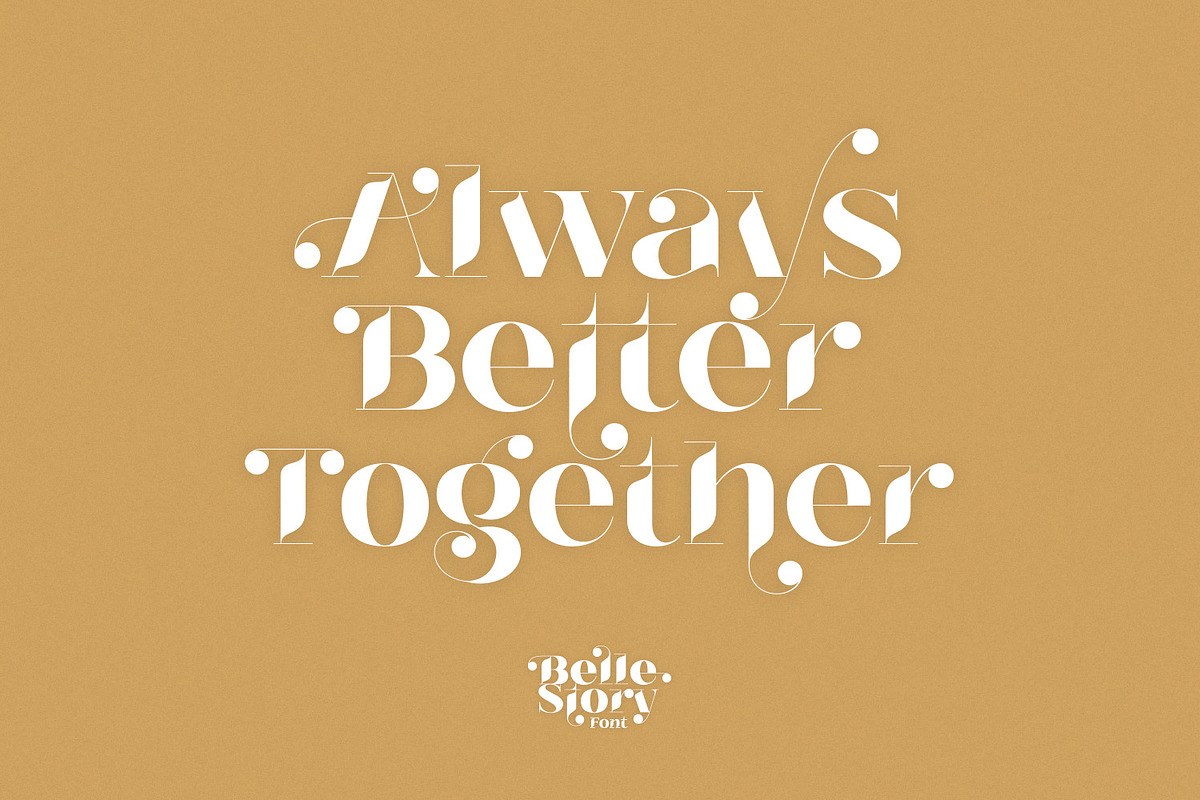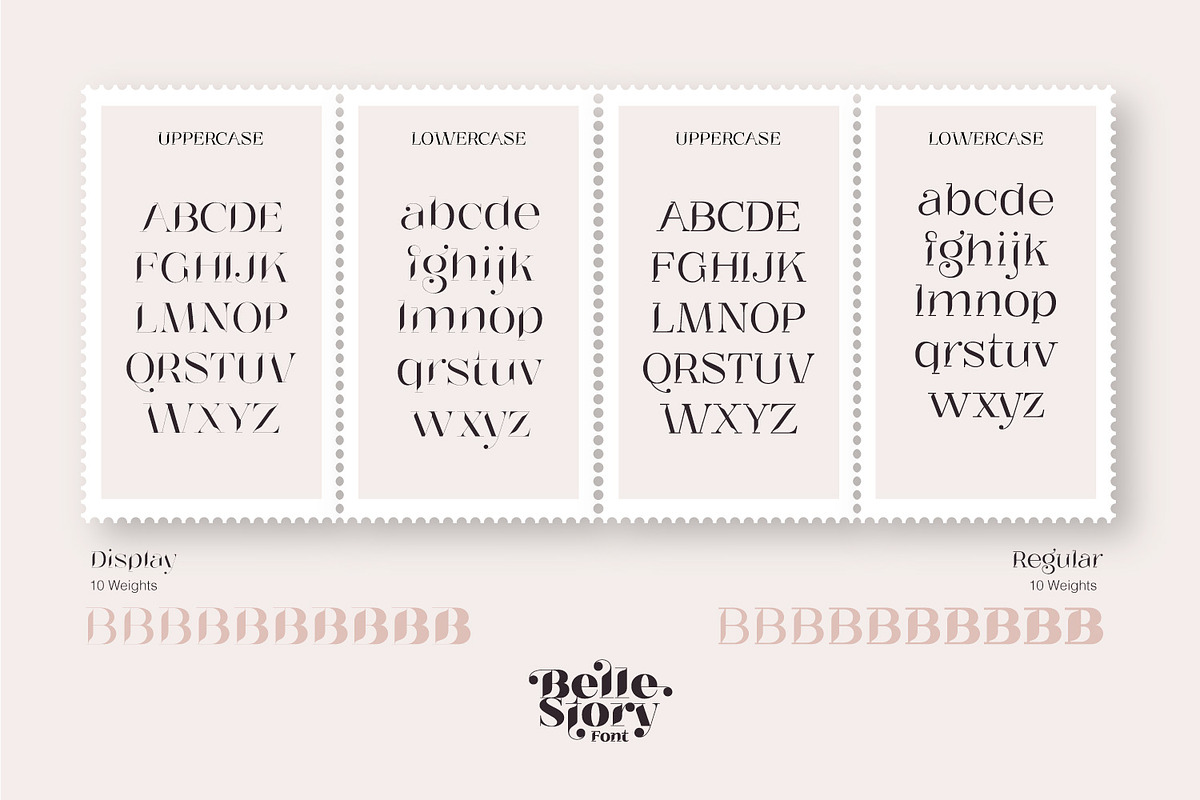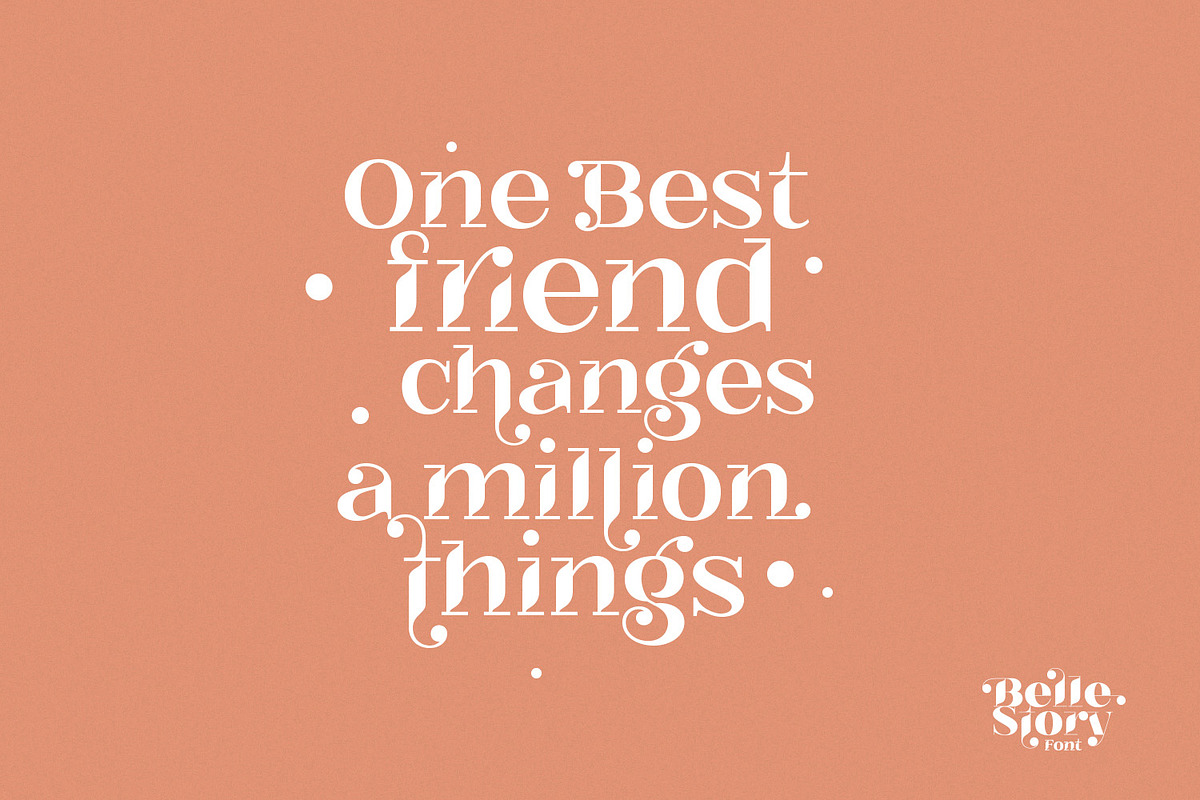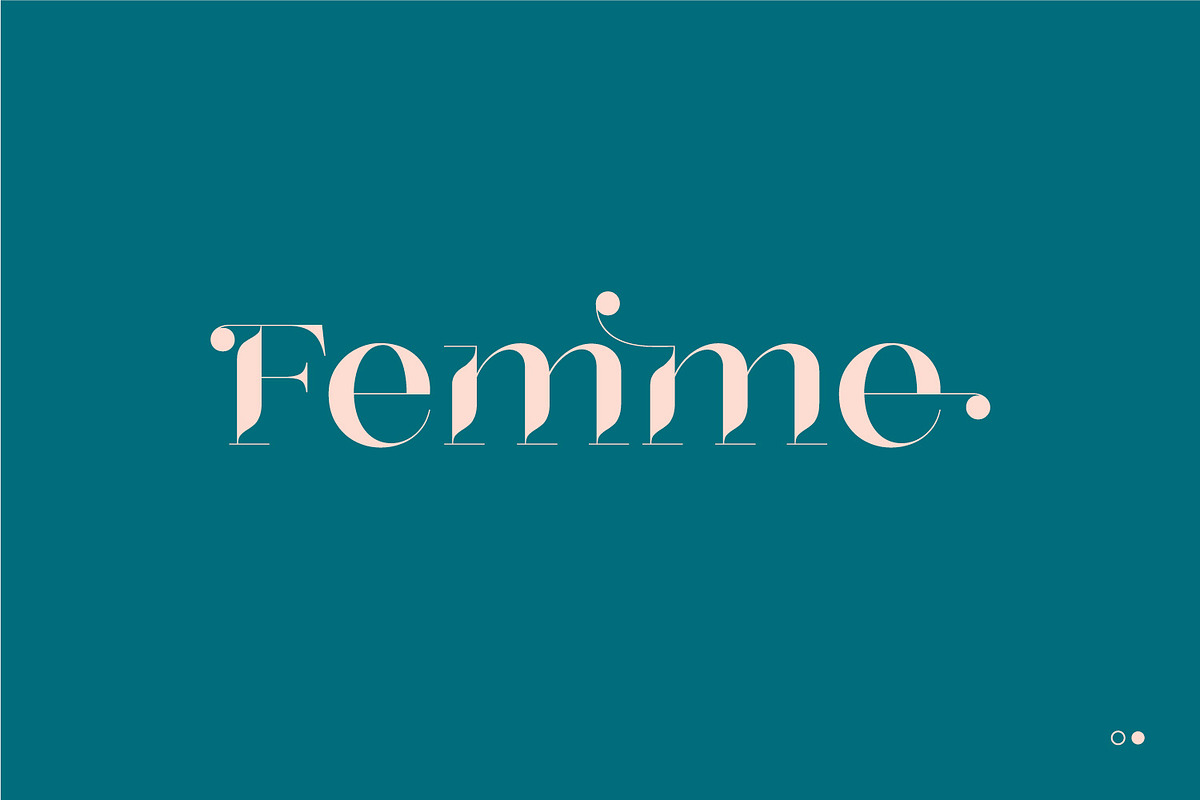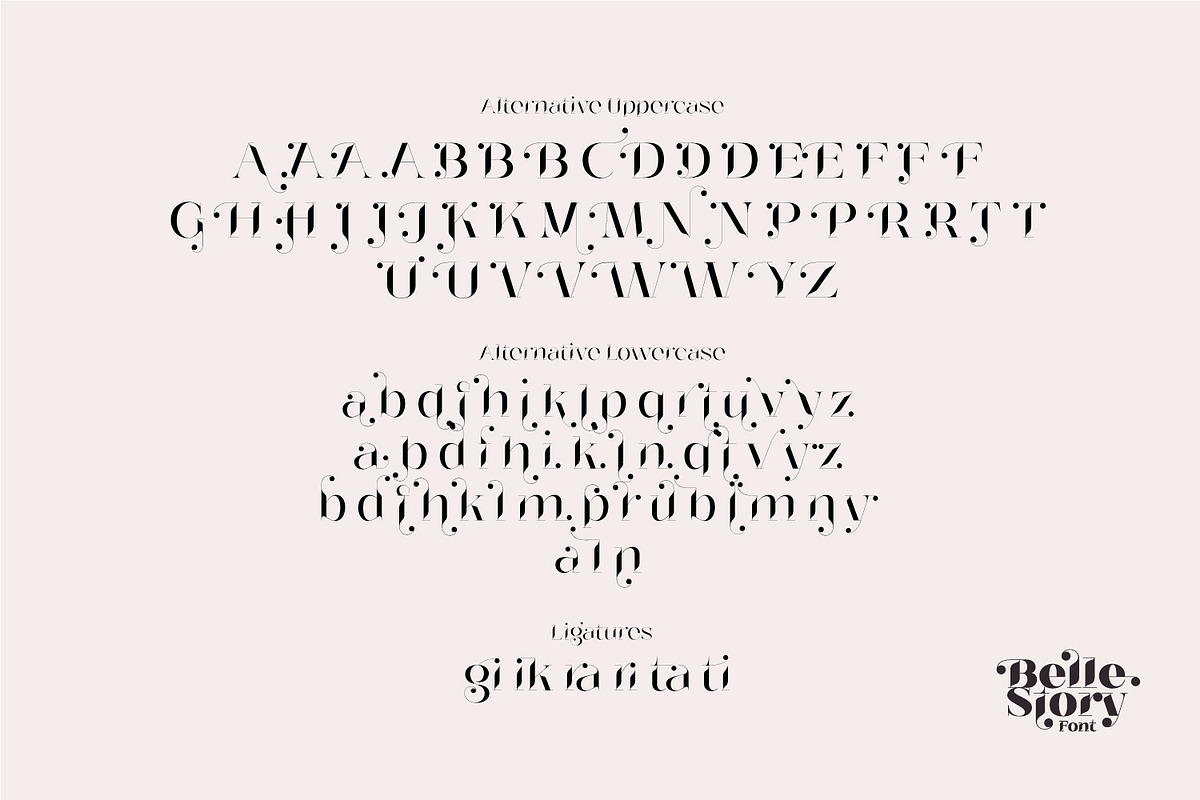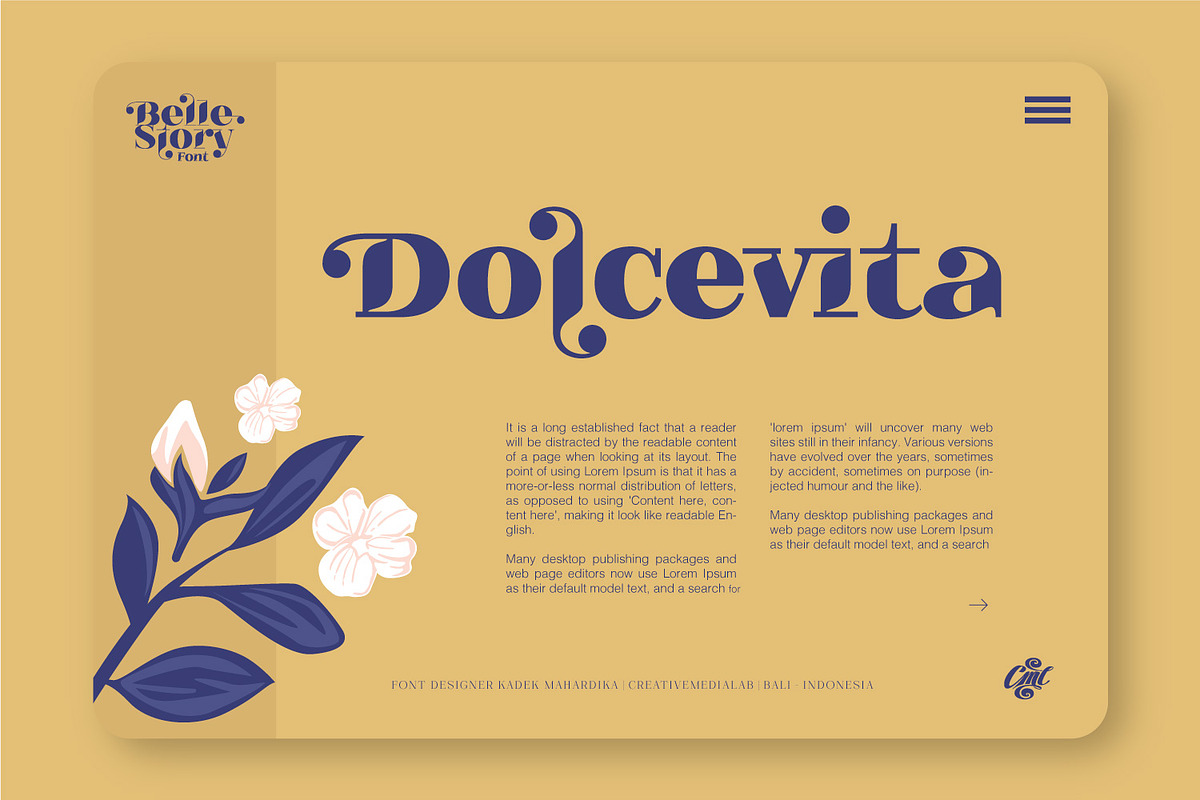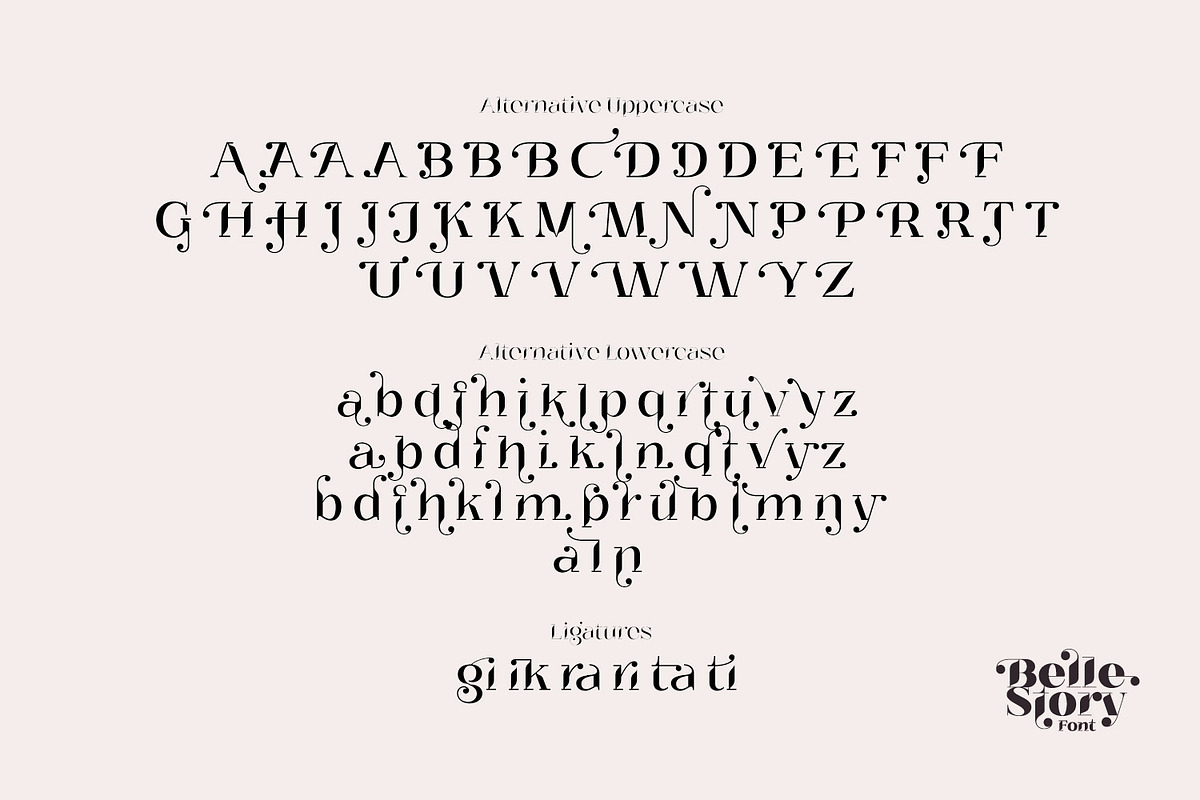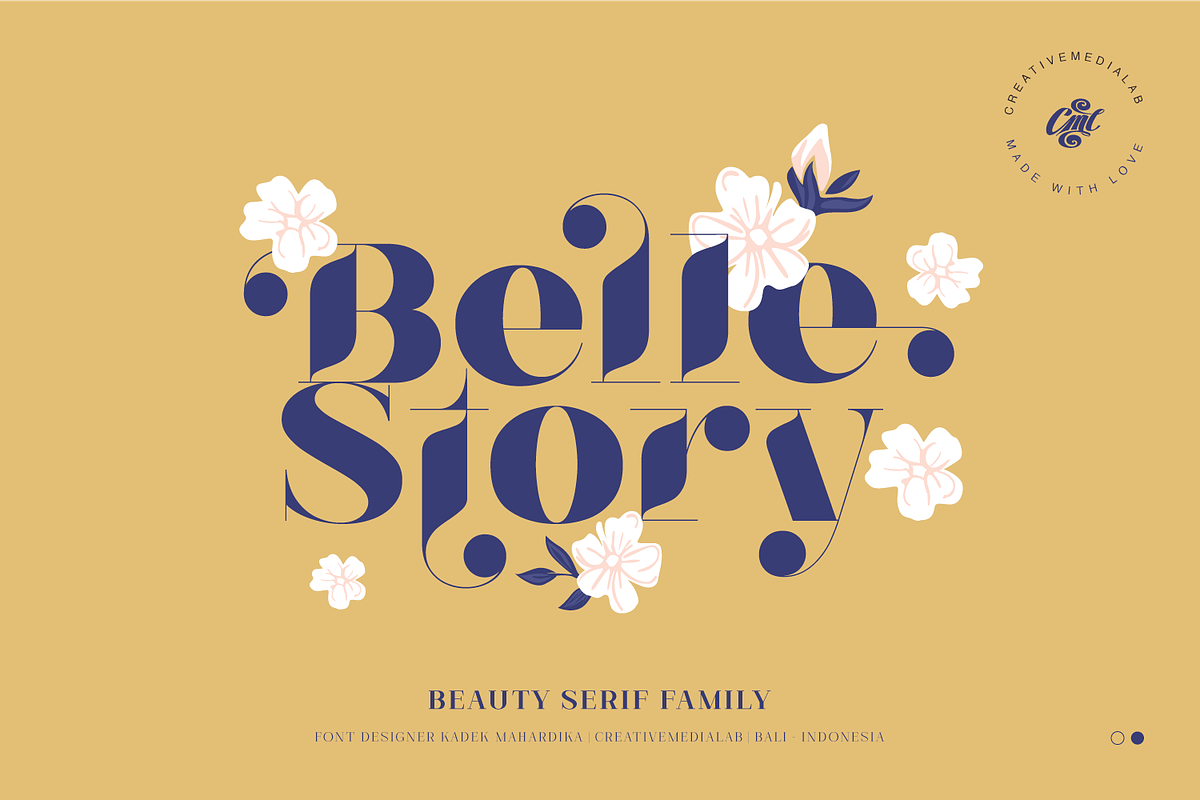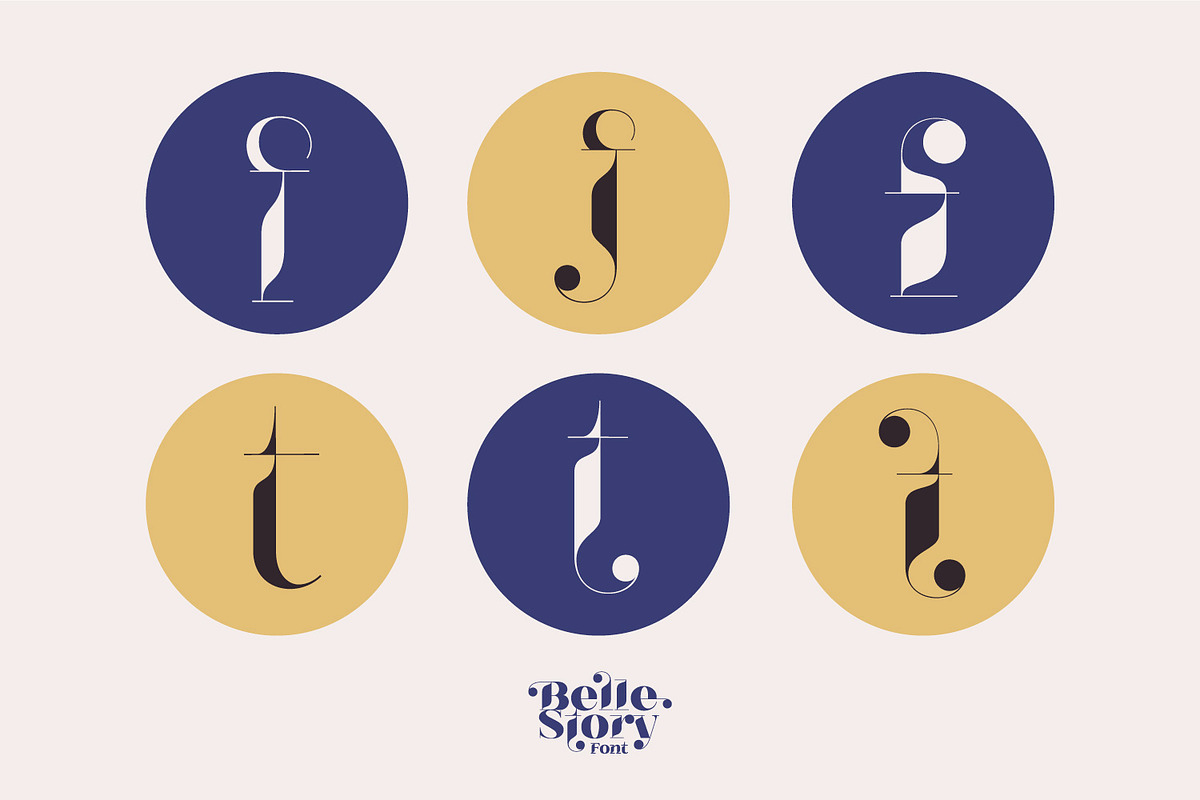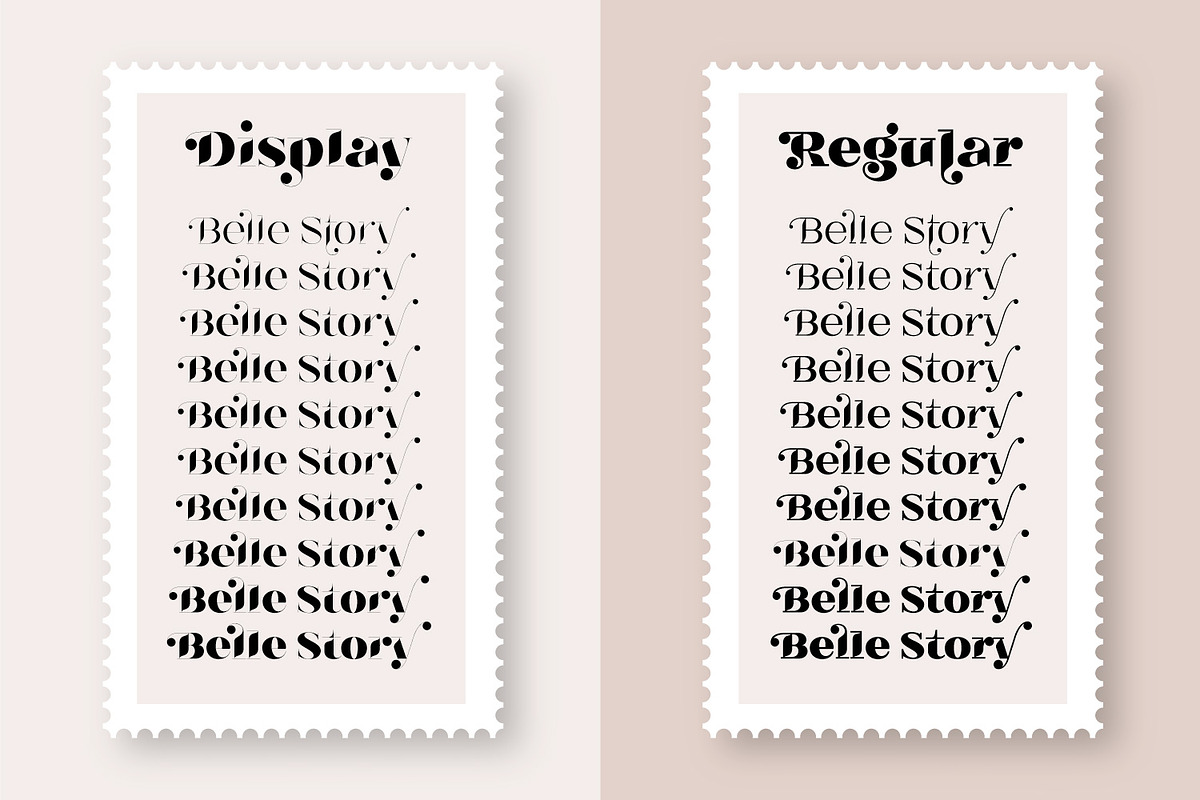
Belle Story - Beauty serif family
This hi-contrast and Fashionable display font Consist of 2 styles, Display and Regular. Each type has 10 weights from thin to black with fine lines and smooth curves to make this font perfect for luxury, classy, high-end branding, logo, and many more.
Belle story is also available in Variable format, multilingual support, numbers, currency symbols, and dozens of alternates.